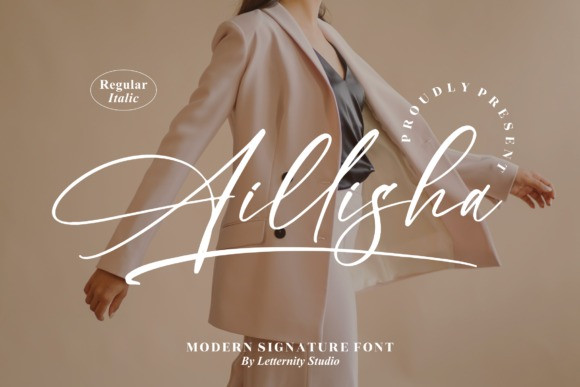
Aillisha Script Font
Aillisha Script Font is a splendid script font that will impress you with its unique and natural feel! Its beautifully flowing characters make this font the perfect match for wedding invitations, birthday cards, personal branding, or other creative projects.